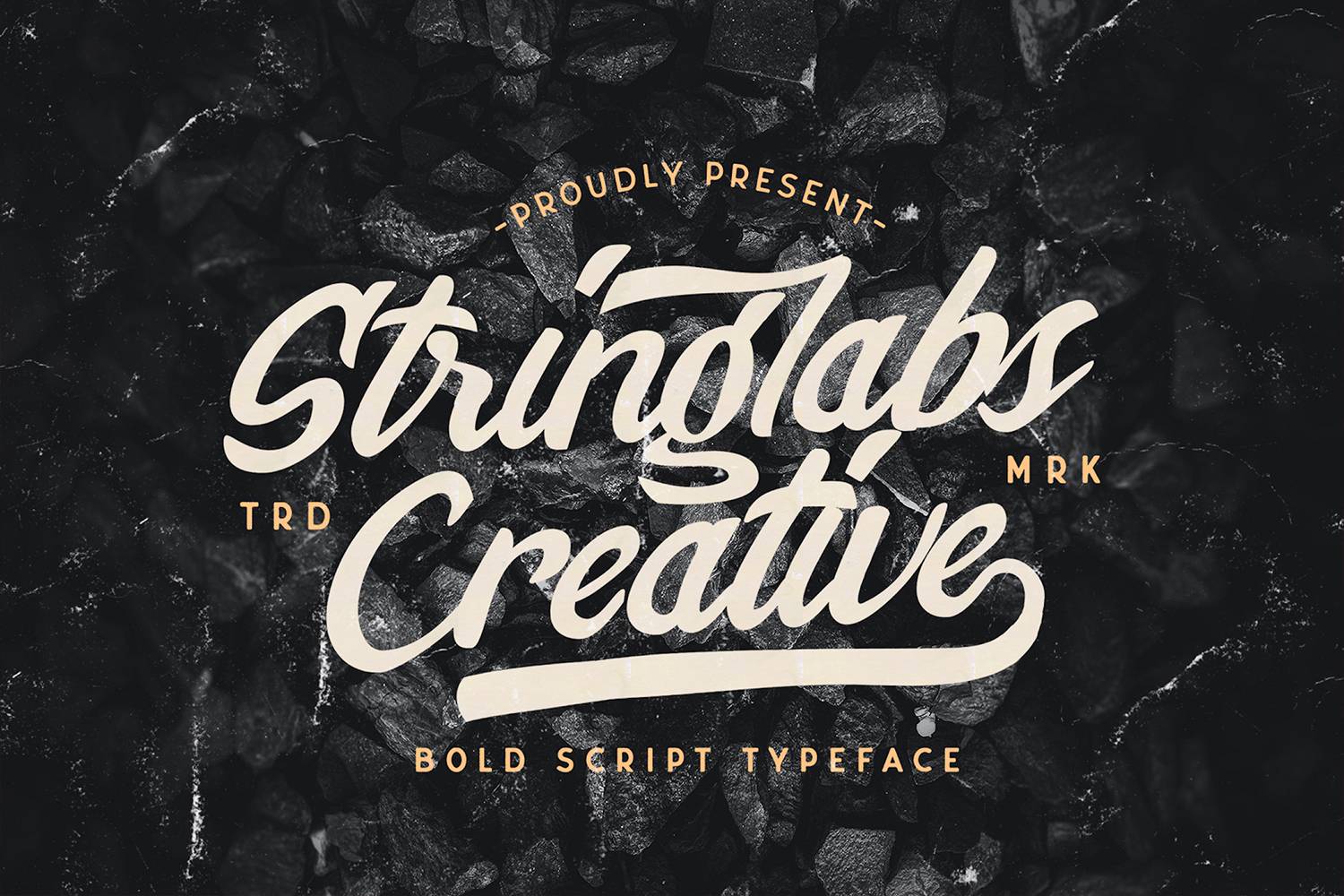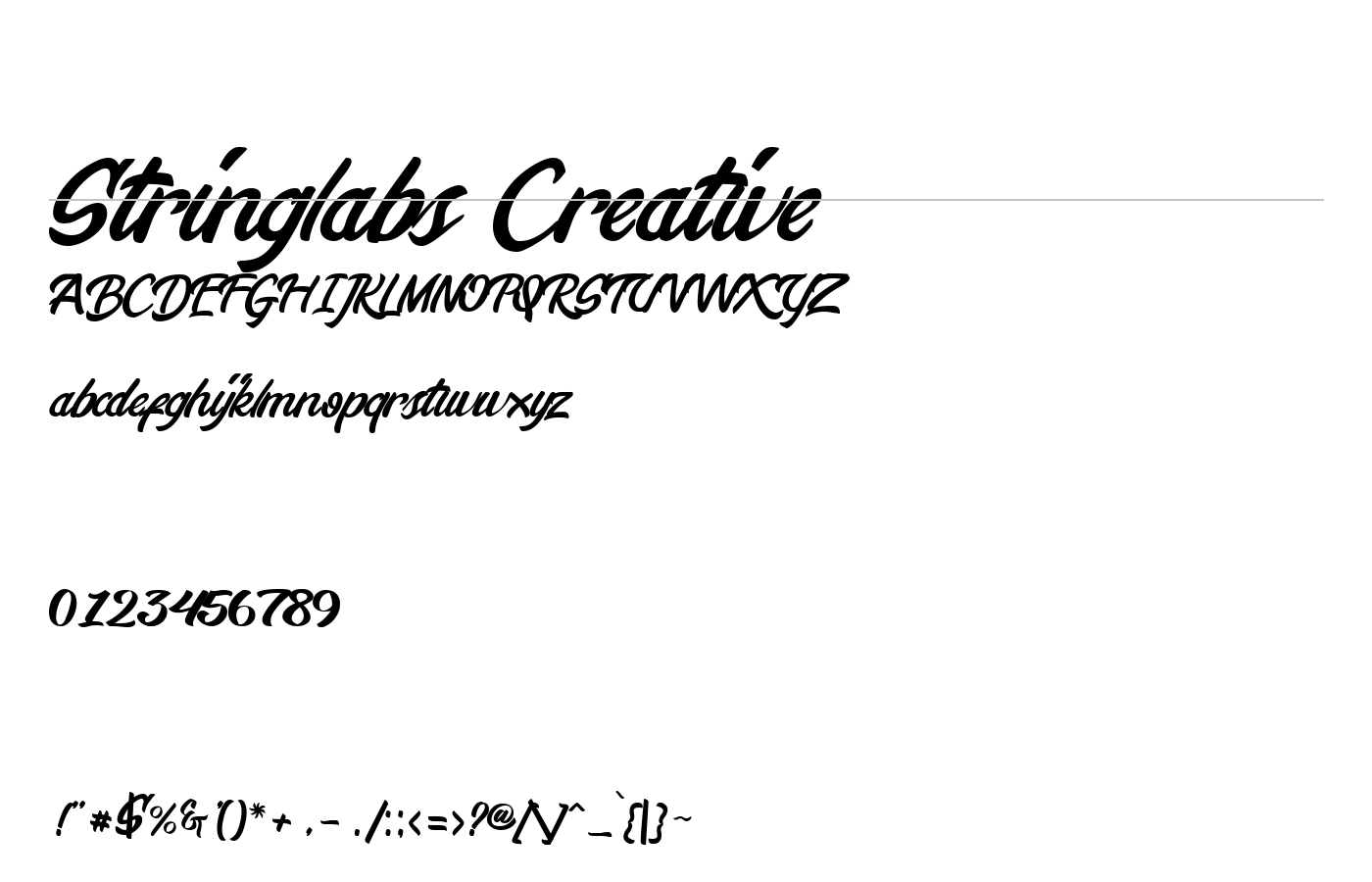
Stringlabs Creative Font is a bold, cursive script with a dynamic and energetic flow, featuring smooth, thick strokes and a slightly condensed width. Its lively and informal style makes it perfect for creative branding, eye-catching headlines, and artistic projects that seek a personal, handwritten touch with confident flair. Ideal for logos and packaging, this font adds warmth and character while maintaining strong readability.
Stringlabs Creative Font
About Stringlabs Creative Font